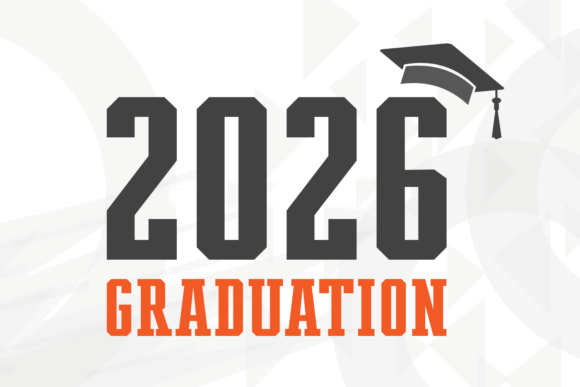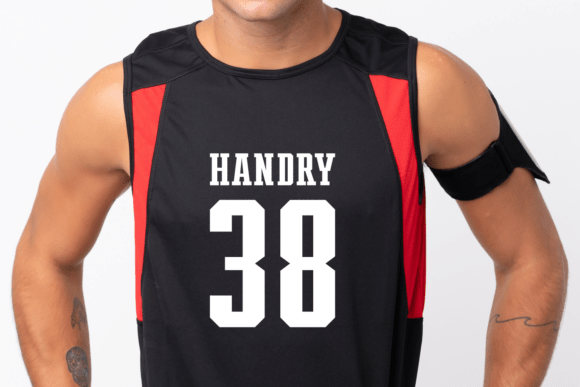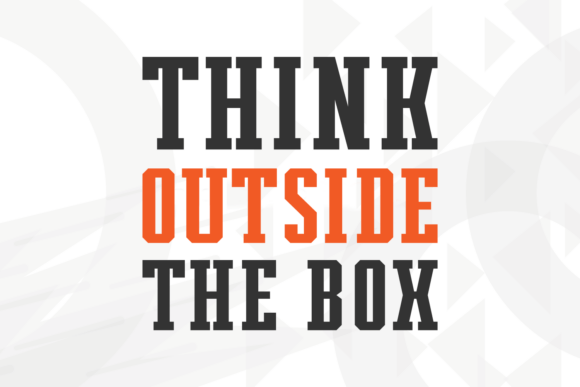
Introducing College Moving Font: The Ultimate Choice for Sports-Themed Designs
Are you a designer or crafter looking for a font that captures the vibrant spirit of collegiate life? Look no further than College Moving, a bold and dynamic Slab Serif font that’s perfect for sports-themed designs, Varsity and Campus-inspired creations, and more. With its unique blend of classic College and Sporty aesthetics, this font is sure to take your branding to the next level.
A Font that Embodies the Collegiate Spirit
College Moving font is designed to deliver the vivacious spirit of collegiate life, making it an ideal choice for designers who want to create energetic and youthful designs. Its bold and dynamic Slab Serif style exhibits characteristics of classic College and Sporty aesthetics, with an added punch that brings a jersey-like feel. This font is strong, confident, and perfect for making a statement.
One of the best things about College Moving font is its versatility. It’s not just limited to sports-themed designs; it’s also perfect for Varsity and Campus-inspired creations, apparel design, book covers, magazine pages, greeting cards, logo designs, packaging design, and quote wallpapers. Whether you’re designing for print or digital, this font is sure to shine.
Authentic Look and Feel
College Moving font has an authentic look and feel that’s perfect for apparel design. Its variable nature allows it to adapt to different design styles, making it a great choice for designers who want to create modern and trendy designs. The font’s boldness makes it ideal for T-shirt typography, and its clean lines ensure that your designs will look great on any type of apparel.
Elegant and Eye-Catching
College Moving font is not just bold and dynamic; it’s also elegant and eye-catching. Its round and smooth texture makes it mesmerizing on magazine pages, upbeat on greeting cards, and compelling as part of logo designs. Whether you’re designing for print or digital, this font is sure to grab attention and leave a lasting impression.
Perfect for Storytelling
College Moving font is more than just a font; it’s a storytelling companion. Its unique style and versatility make it perfect for designers who want to tell a story through their designs. Whether you’re creating a brand identity, designing a book cover, or crafting a logo, this font is sure to help you convey your message in a bold and dynamic way.
- Bold and dynamic Slab Serif style: College Moving font is designed to make a statement with its bold and dynamic Slab Serif style.
- Variable nature: The font’s variable nature allows it to adapt to different design styles, making it perfect for modern designs.
- Authentic look and feel: College Moving font has an authentic look and feel that’s perfect for apparel design and other applications.
- Elegant and eye-catching: The font’s round and smooth texture makes it elegant and eye-catching, perfect for magazine pages, greeting cards, and logo designs.
- Perfect for storytelling: College Moving font is a perfect storytelling companion, ideal for designers who want to convey a message in a bold and dynamic way.
In conclusion, College Moving font is a bold and dynamic Slab Serif font that’s perfect for designers and crafters who want to create sports-themed designs, Varsity and Campus-inspired creations, and more. Its unique blend of classic College and Sporty aesthetics, versatility, and authentic look and feel make it an ideal choice for a wide range of design applications. Whether you’re designing for print or digital, College Moving font is sure to take your branding to the next level.